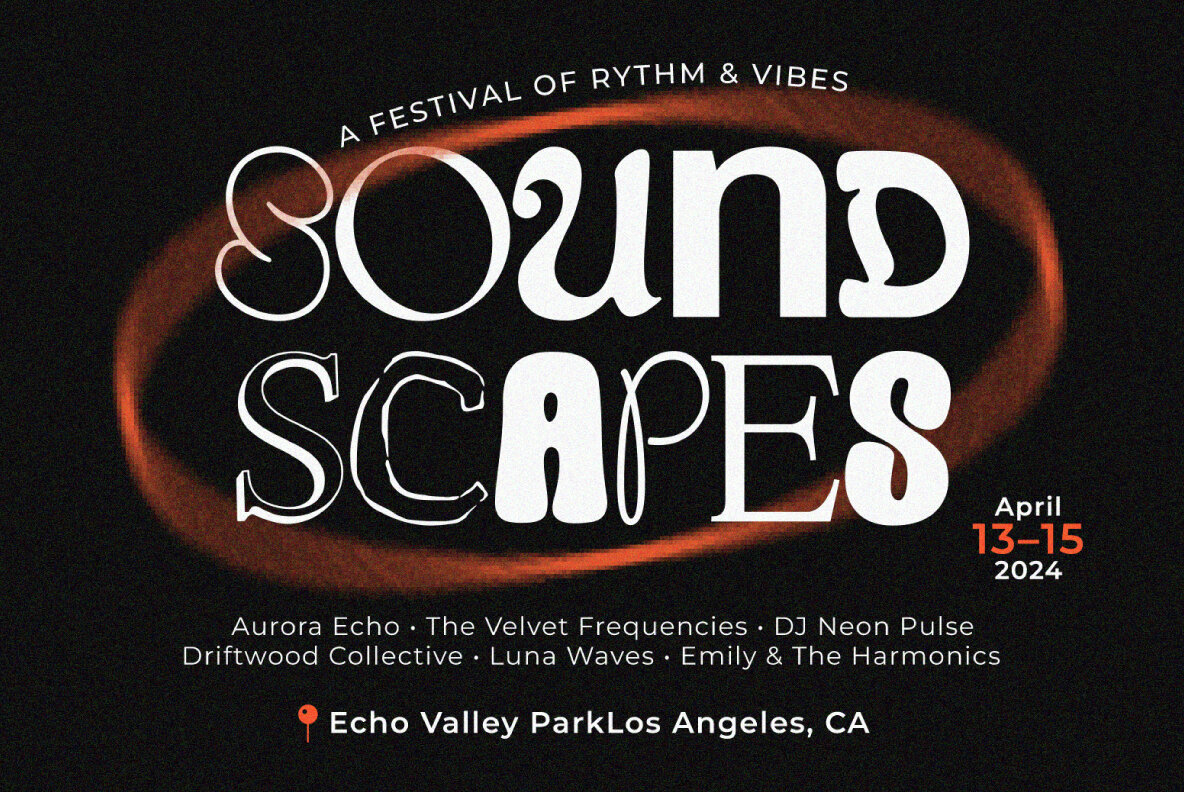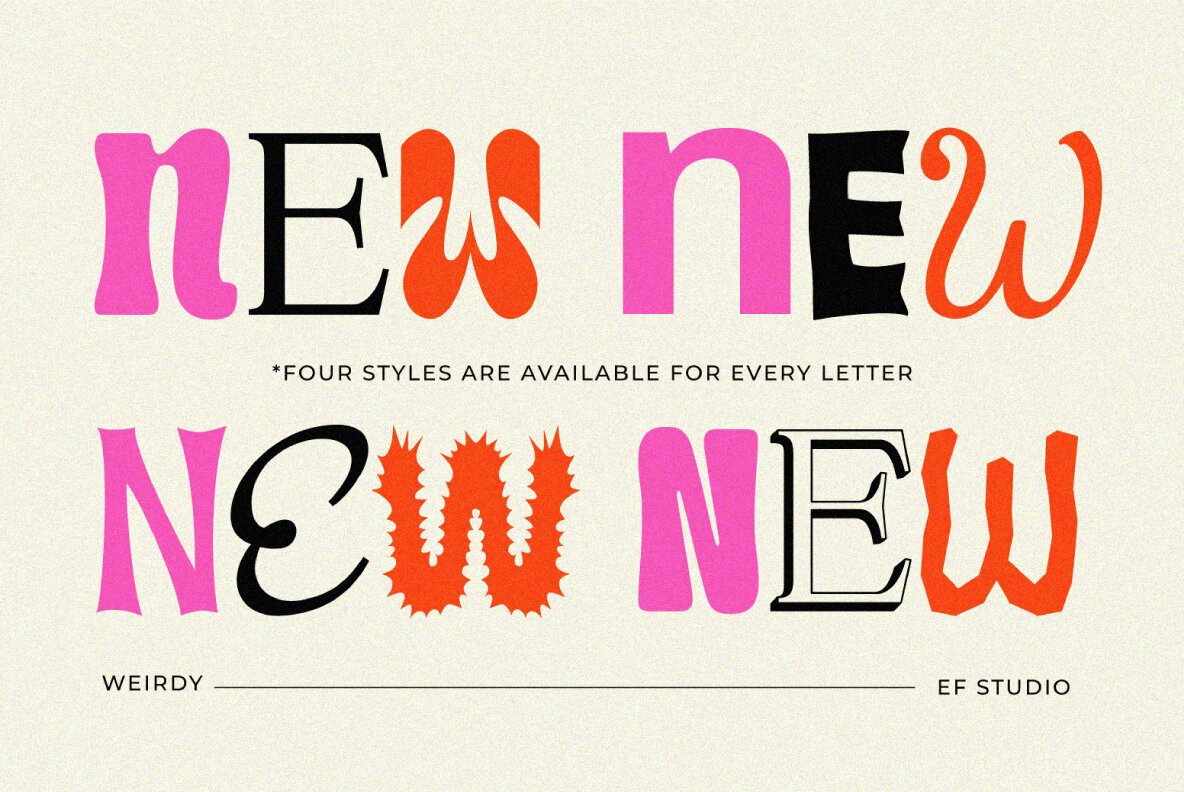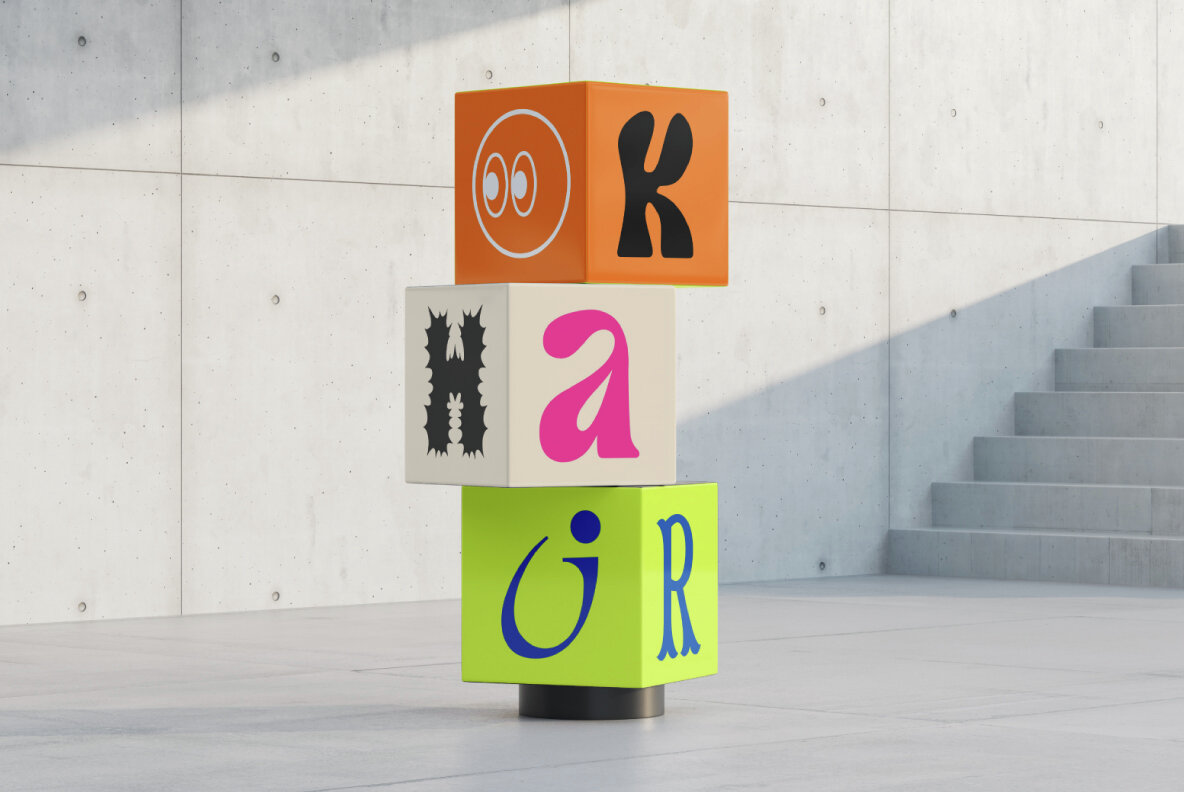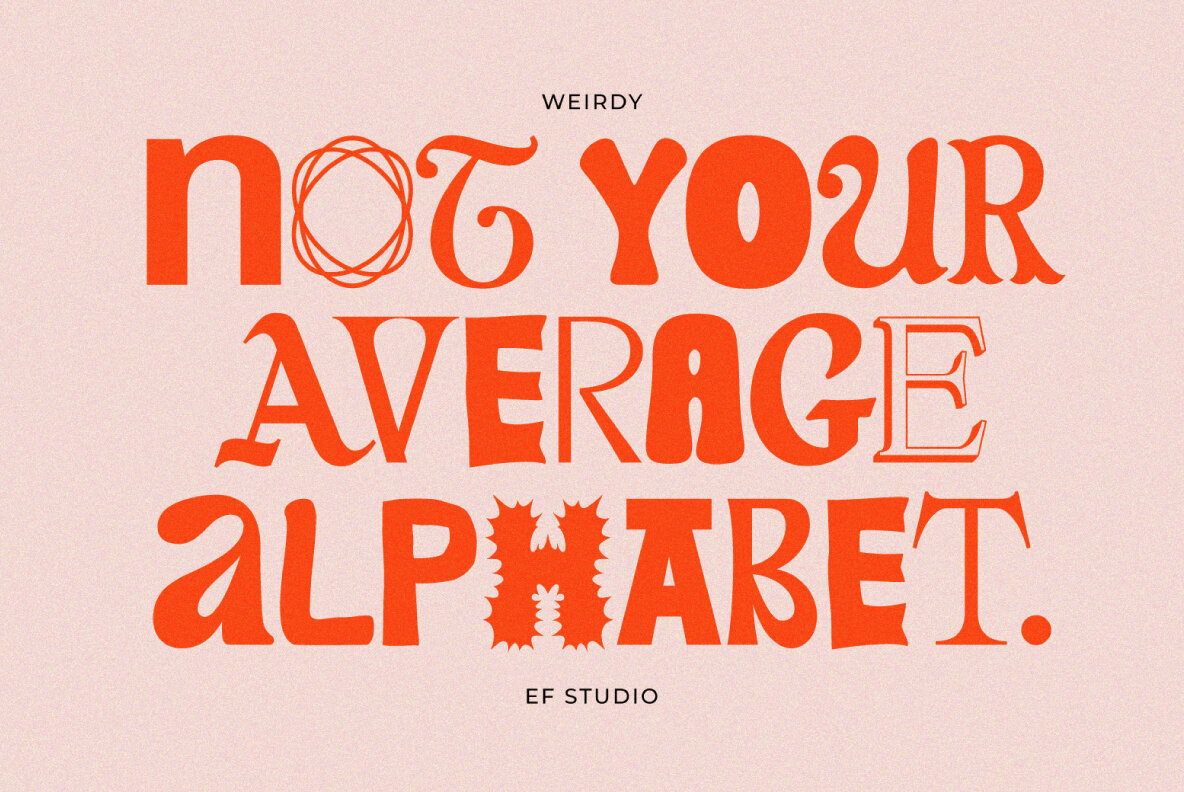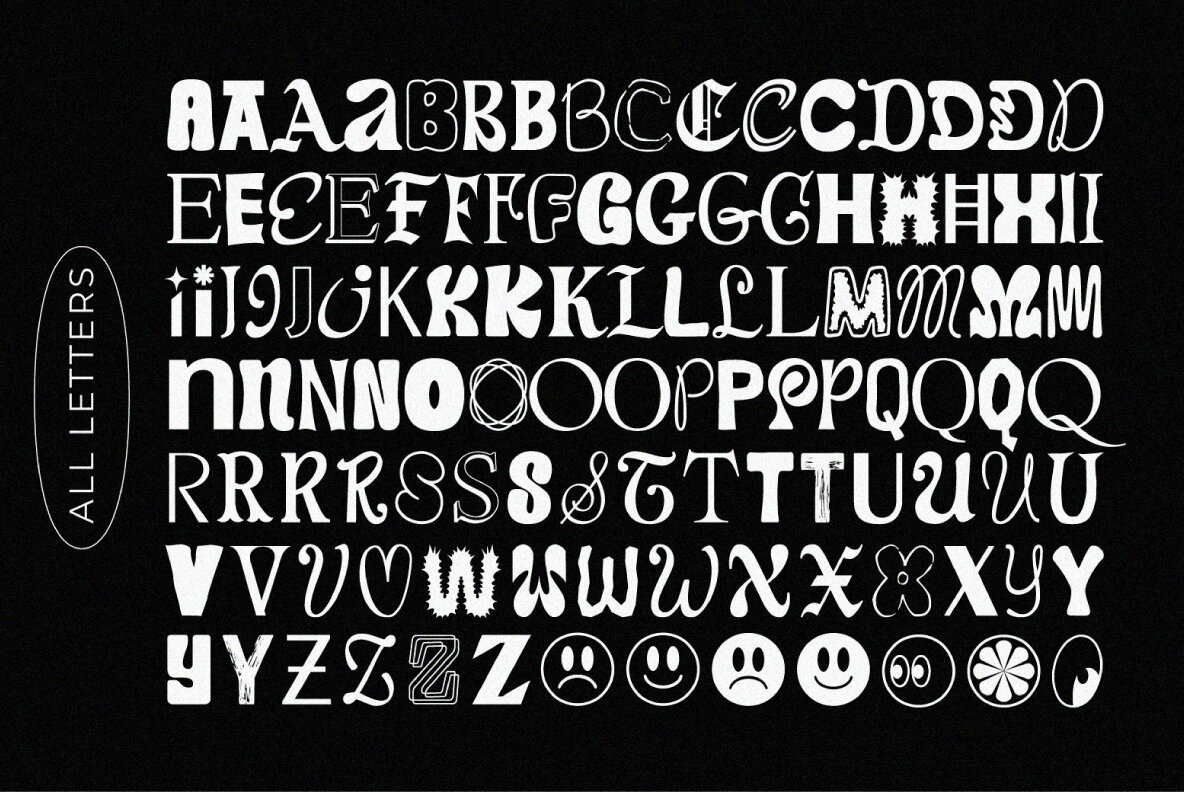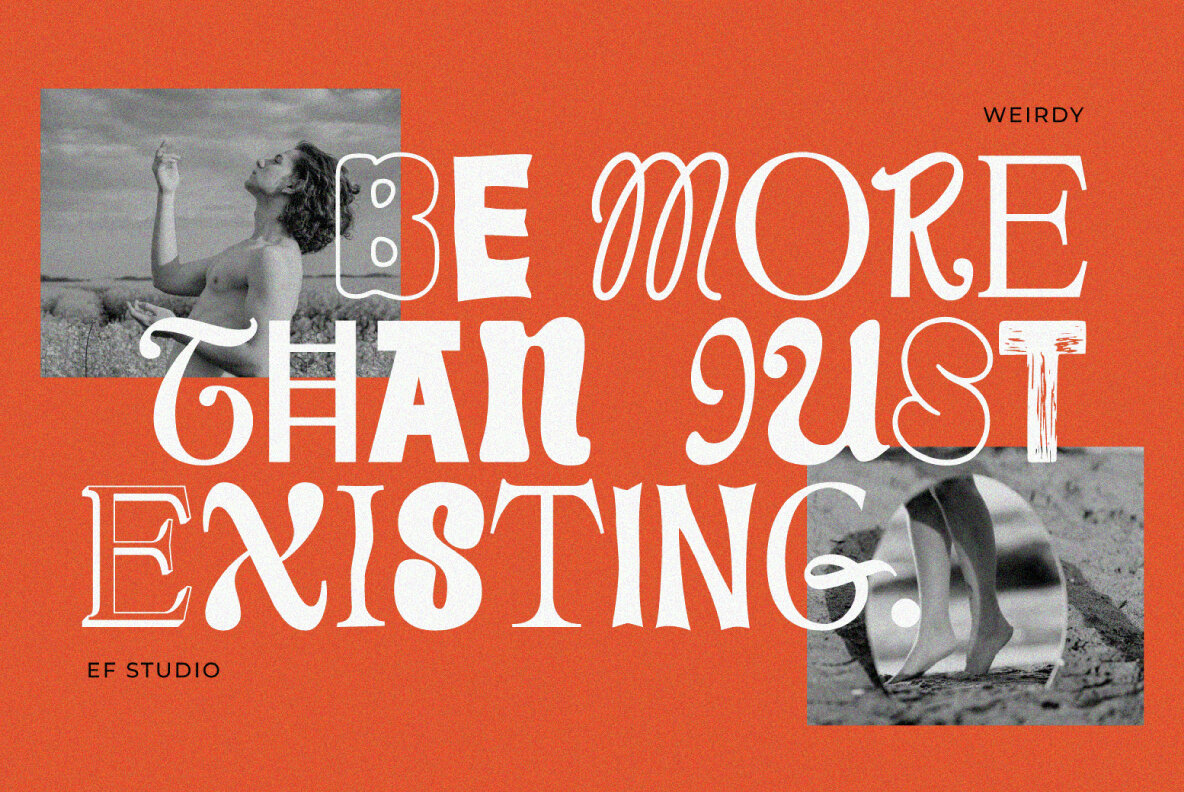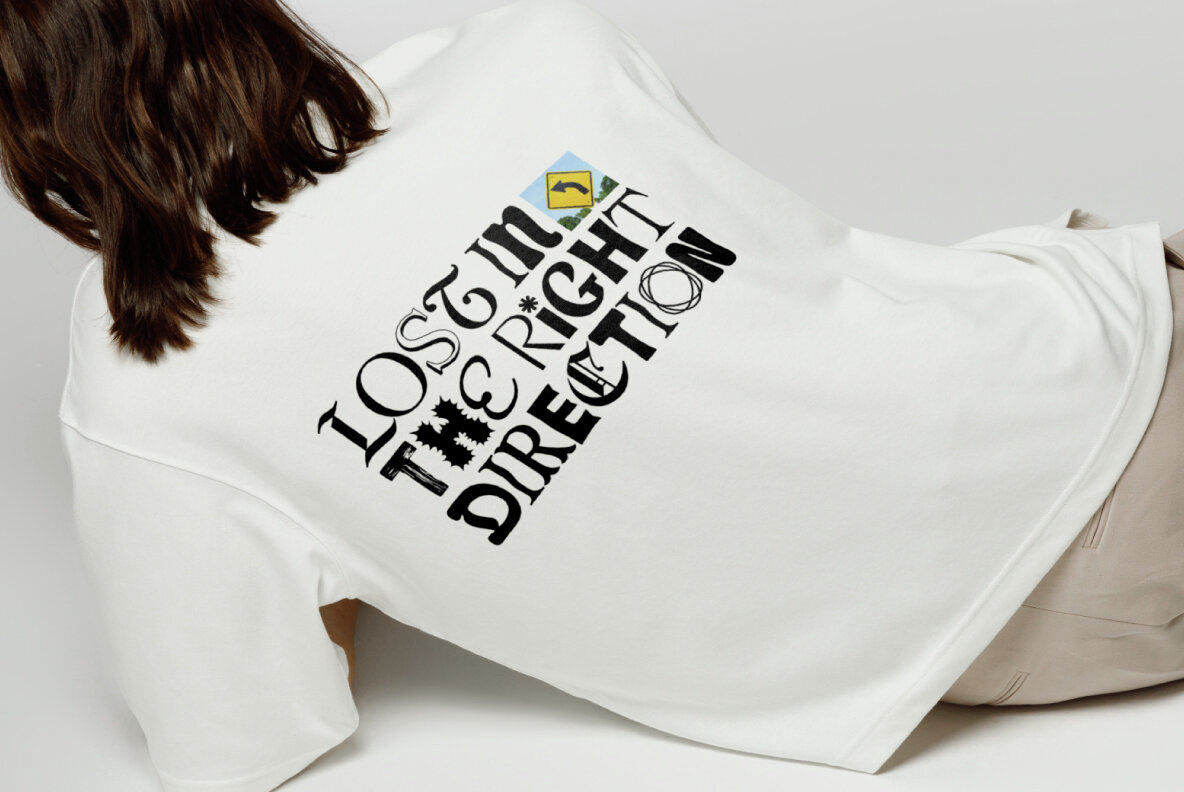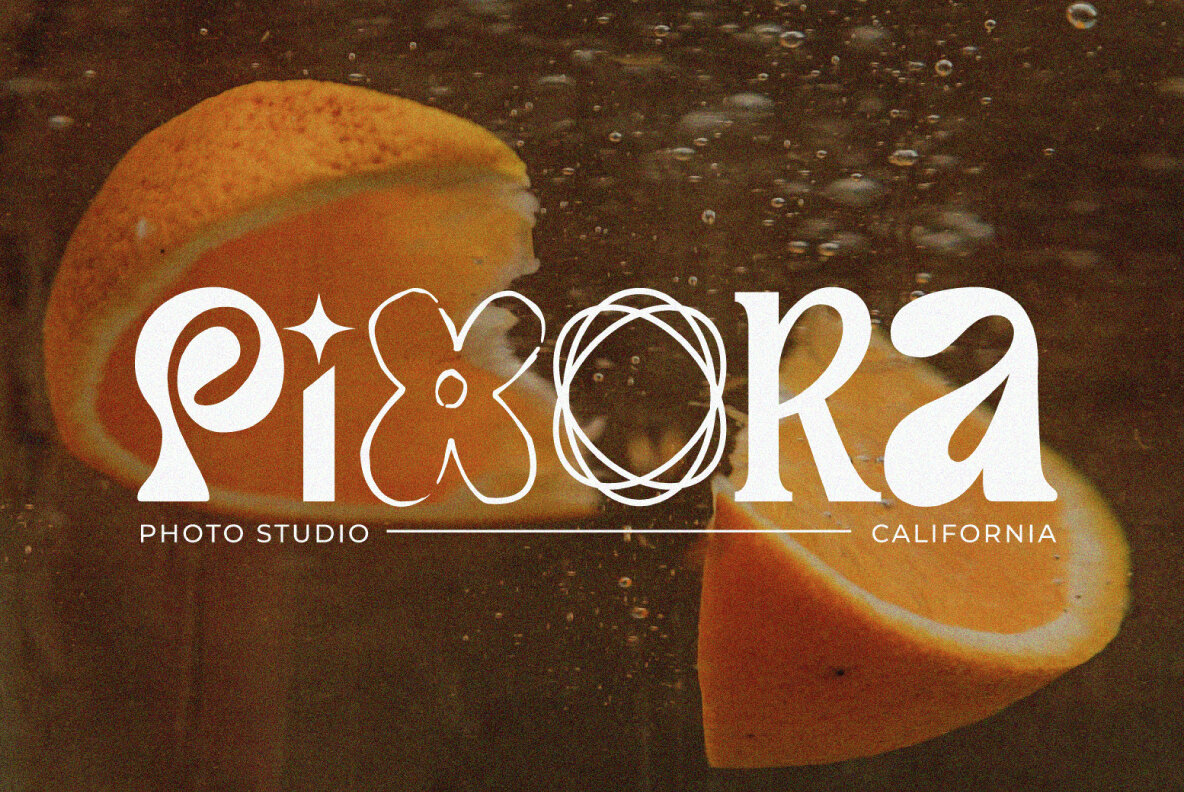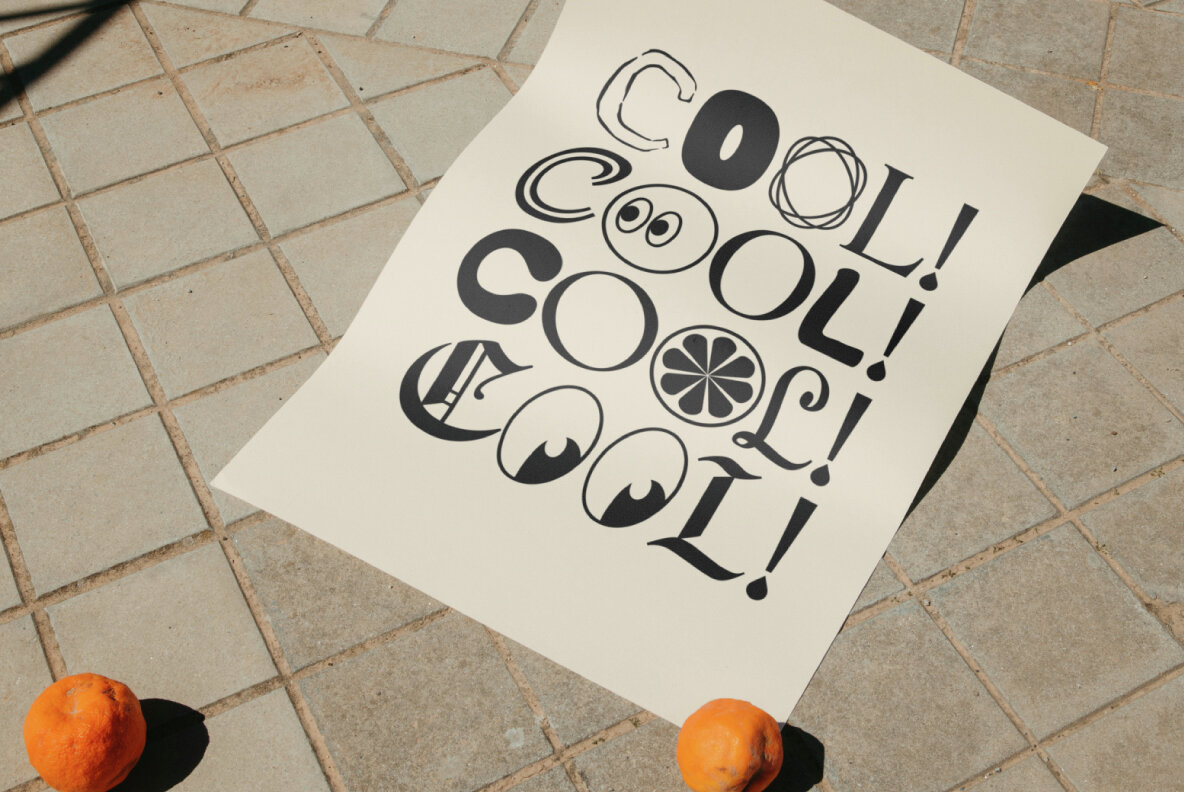
Weirdy Font
Weirdy
Weirdy is a vibrant and eclectic display typeface that offers a refreshing take on creative typography. Each character in this typeface is crafted with unique elements, combining playful shapes, bold outlines, and decorative details. This design approach results in a captivating and dynamic aesthetic, making it ideal for projects that demand attention.
Perfect for use in posters, branding materials, or editorial designs, Weirdy infuses personality and energy into any creative work. Its bold and distinctive style is engineered to stand out, providing a powerful visual impact that transforms ordinary designs into memorable statements.